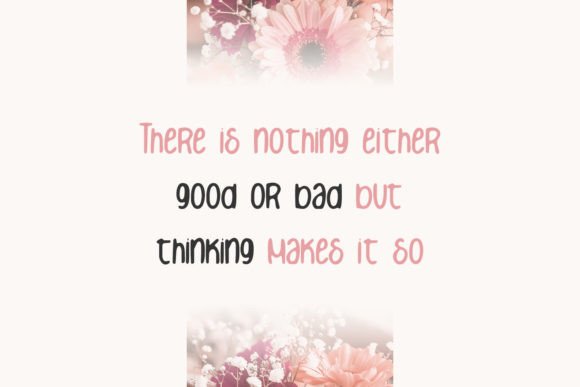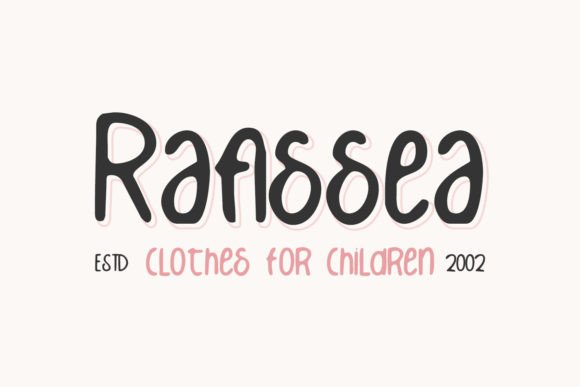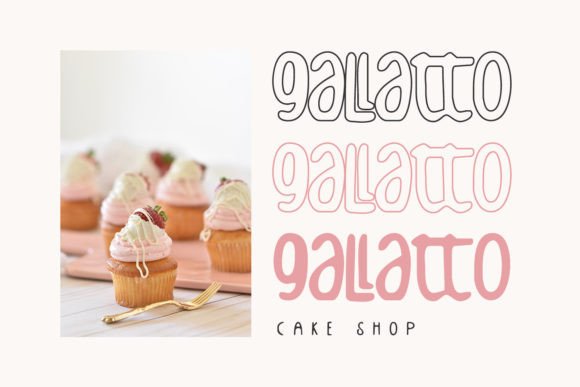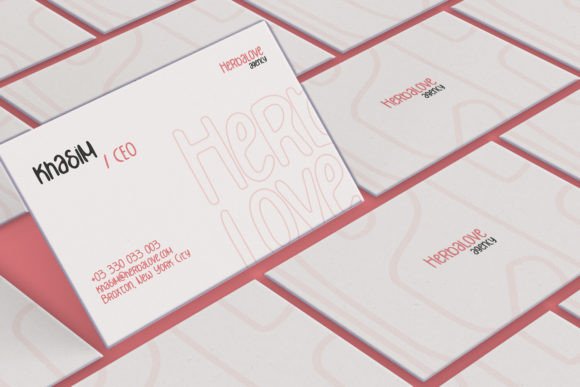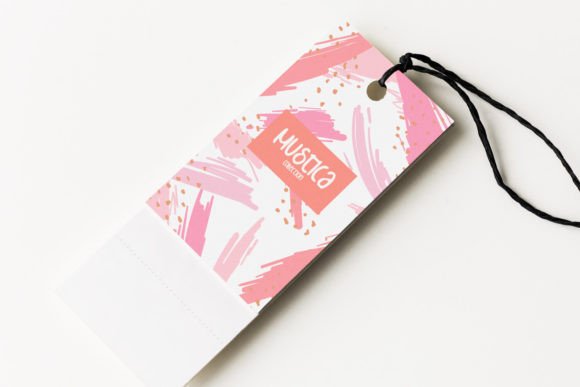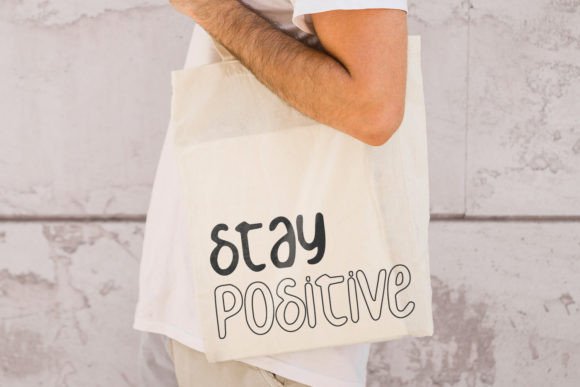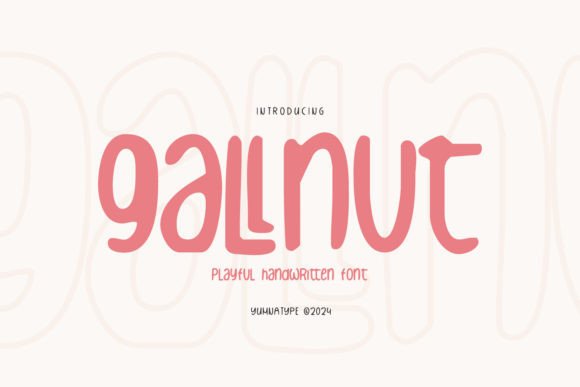
Gallnut Font: A Playful Handwritten Delight for Designers and Crafters
In the world of typography, few fonts manage to capture the essence of playfulness and whimsy as effectively as Gallnut. This delightful handwritten font is a treasure trove of character and personality, making it an ideal choice for designers and crafters looking to add a unique touch to their projects. At its core, Gallnut is crafted with a playful hand-drawn aesthetic, capturing the spontaneity and warmth of handwritten lettering.
The Charm of Handwritten Typography
Handwritten fonts have always been a favorite among designers and crafters, and for good reason. They bring a level of warmth and personality to a project that is hard to replicate with more formal, machine-generated fonts. Gallnut is no exception, with each character imbued with a sense of whimsy and playfulness that is sure to capture the eye of your audience.
One of the key features that sets Gallnut apart from other handwritten fonts is its unique character set. Each letter, number, and symbol is carefully crafted to convey a sense of spontaneity and creativity, making it perfect for projects where you want to add a personal touch. Whether you’re designing a logo, creating a craft project, or simply looking for a font to add some personality to your digital content, Gallnut is an excellent choice.
Design Possibilities with Gallnut
The versatility of Gallnut is one of its most appealing features. This delightful handwritten font can be used in a wide range of design projects, from digital content to print materials. Here are just a few ideas to get you started:
- Branding and Logos: Use Gallnut to create a unique and memorable logo that captures the personality of your brand.
- Crafting and Scrapbooking: Add a personal touch to your craft projects and scrapbook pages with Gallnut’s playful and whimsical charm.
- Digital Content: Use Gallnut to add some personality to your blog posts, social media graphics, and other digital content.
- Invitations and Stationery: Create beautiful and unique invitations, greeting cards, and stationery with Gallnut.
Why Designers and Crafters Love Gallnut
So why do designers and crafters love Gallnut so much? Here are just a few reasons:
- Unique Character: Gallnut’s unique character set ensures that your designs will stand out from the crowd.
- Playful Aesthetic: The playful hand-drawn aesthetic of Gallnut adds a level of whimsy and charm to any project.
- Easy to Read: Despite its playful nature, Gallnut is surprisingly easy to read, making it perfect for body text and other longer-form content.
- Versatile: Gallnut can be used in a wide range of design projects, from digital content to print materials.
Tips for Using Gallnut in Your Designs
Here are a few tips for using Gallnut in your designs:
- Experiment with Colors: Gallnut looks great in a wide range of colors, so don’t be afraid to experiment and find the perfect hue for your project.
- Mix and Match: Try pairing Gallnut with other fonts to create a unique and eye-catching design.
- Pay Attention to Size: Gallnut is a highly legible font, but it can become difficult to read at very small sizes. Make sure to adjust the size of your text accordingly.
In conclusion, Gallnut is a delightful handwritten font that is sure to bring a touch of playfulness and whimsy to your designs. With its unique character set, playful aesthetic, and versatility, it’s no wonder that designers and crafters love Gallnut. Whether you’re creating a logo, crafting a project, or simply looking for a font to add some personality to your digital content, Gallnut is an excellent choice.